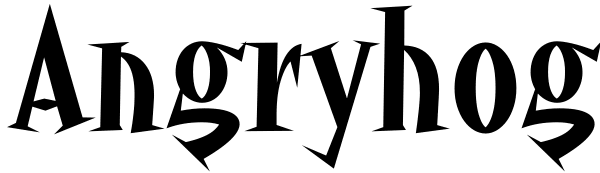
ITC Angryhog
The name Angryhog came out of nowhere out of free association. "When you're working on a typeface on the Mac it demands a name from you which I find a bit confrontational" says Donaldson. ITC Angryhog brings together Roman and Gothic influences in a...